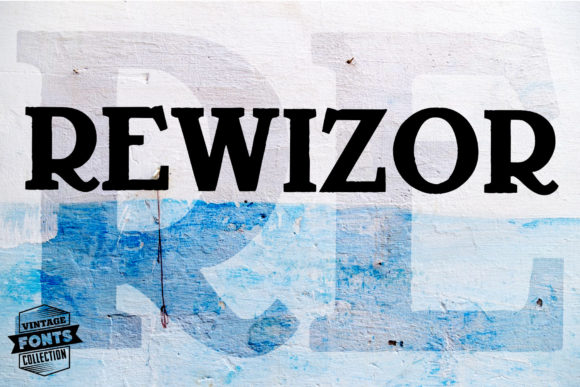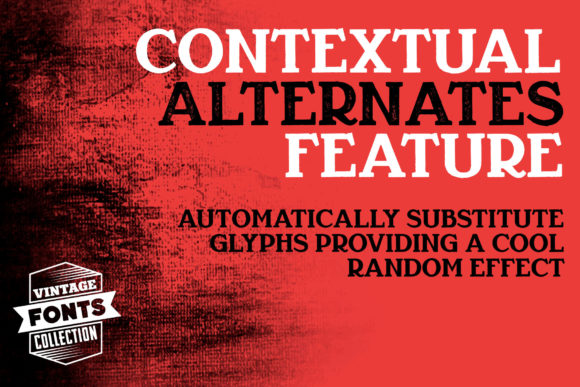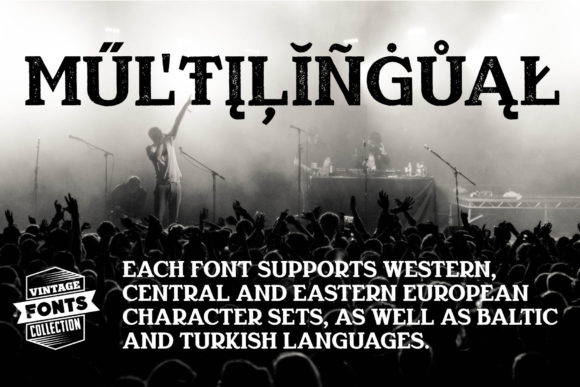
Introduction to Rewizor Font
Rewizor is a bold serif font with a subtle vintage touch.
It will turn any design idea into an eye catcher .
Why Choose Rewizor Font?